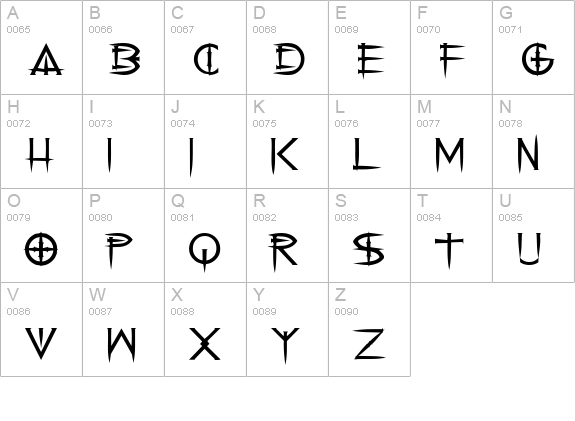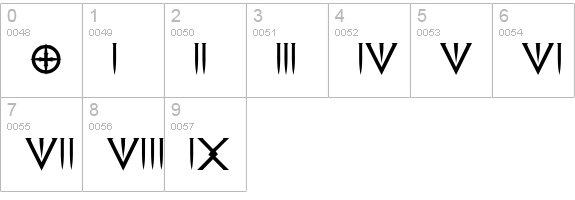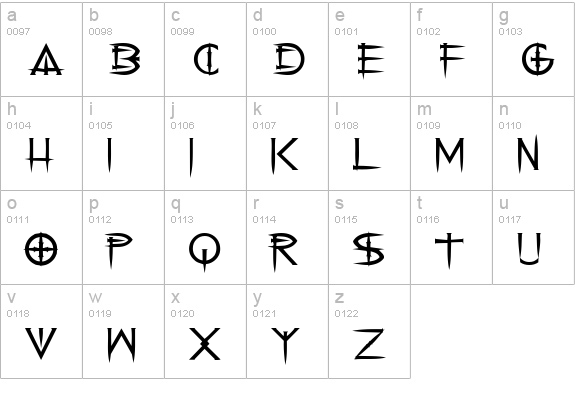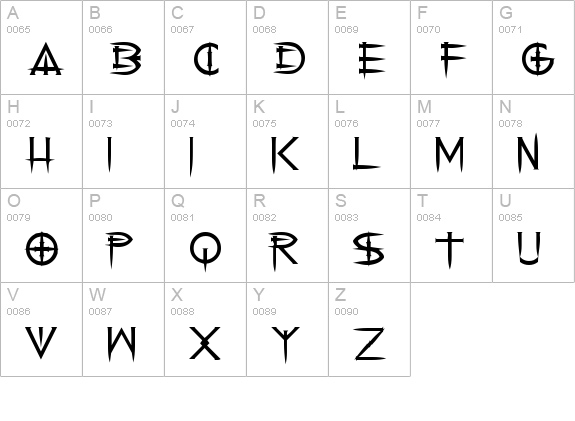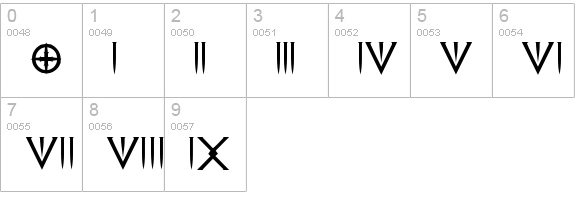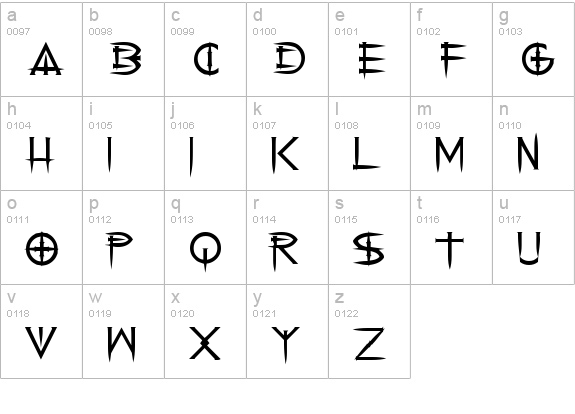
Cenobyte font is a striking and modern typeface that exudes a sense of sophistication and elegance. Its clean lines and unique curves make it a versatile choice for a wide range of design projects, from branding to editorial design. The sleek and contemporary look of Cenobyte font will surely make your text stand out and leave a lasting impression on your audience. What's even better is that Cenobyte font is available for free download at FontsMarket.com. This means you can easily access this stylish font and use it in your projects without any cost. Don't miss out on this amazing opportunity to enhance your designs with the beauty of Cenobyte font – download it today and let your creativity soar!